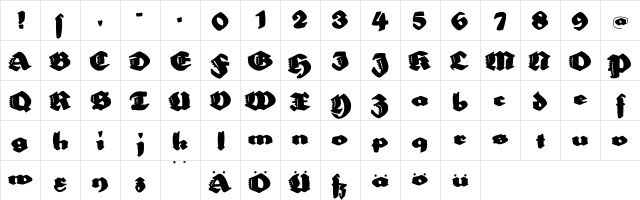
BigElla Regular Font Preview
BigElla Regular
Design Context for BigElla Typeface
BigElla is a composed and adaptable typeface that performs quietly and consistently across a wide range of design contexts.